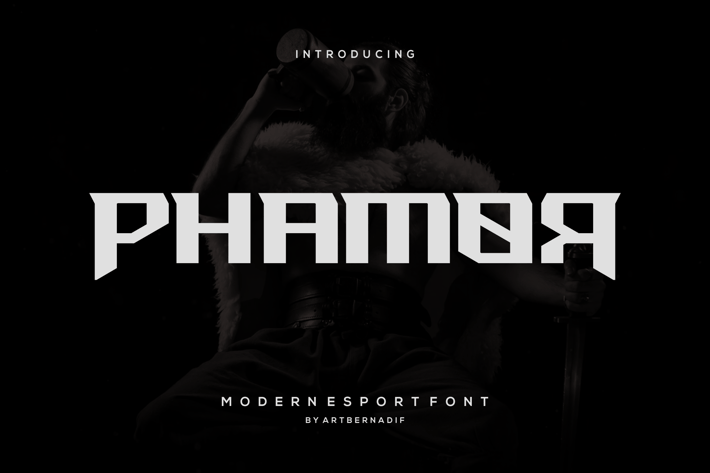
Phamor - Modern Esport Font
Introducing our new product Phamor Modern Esport Font
Phamor Modern Esport Font is a bold and authentic display font. The font is suitable for any branding project like logo, t-shirt printing, esport, and many more.
outstanding in a wide range of contexts.
Phamor Uppercase
* Phamor Alternate